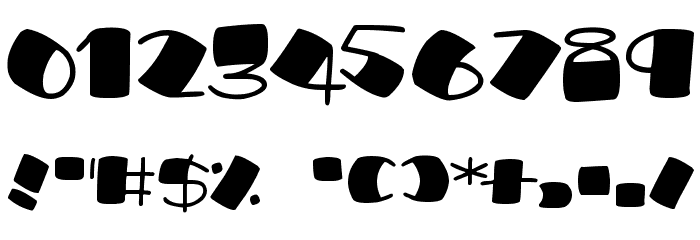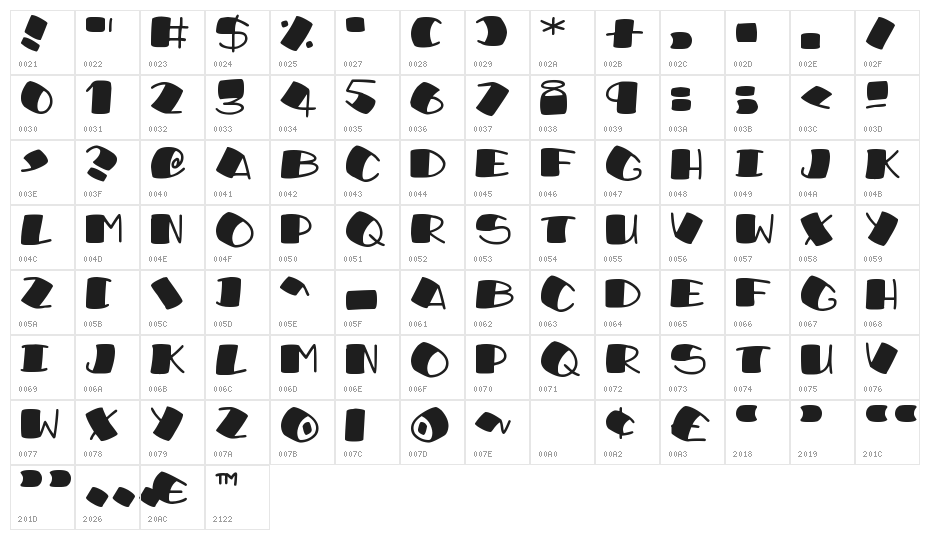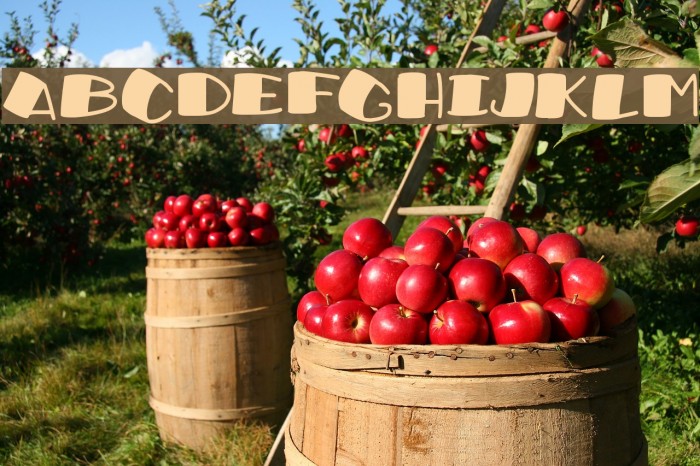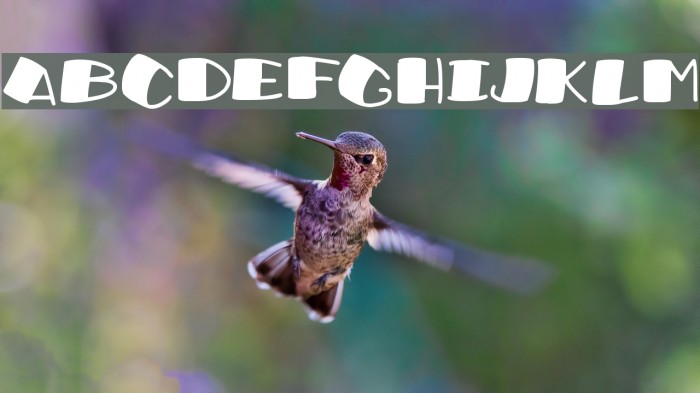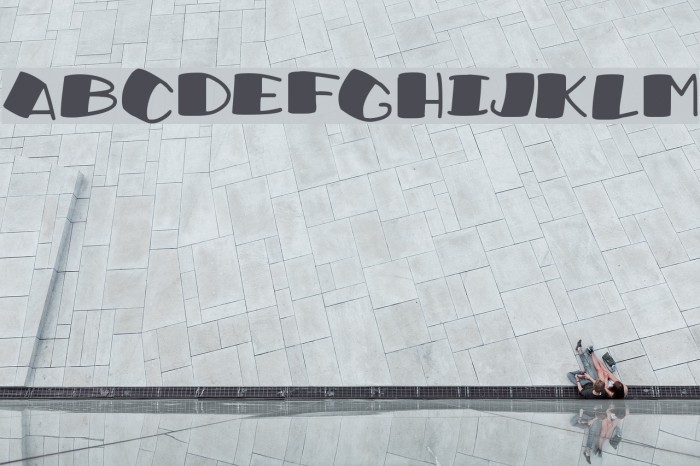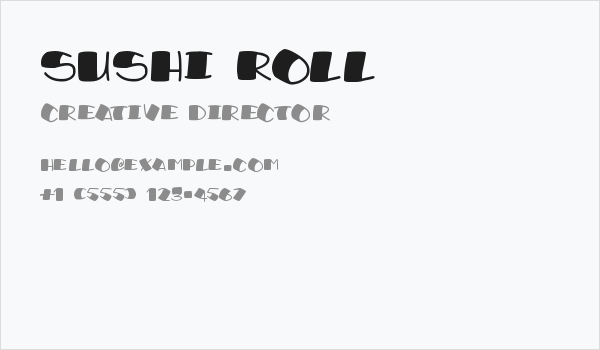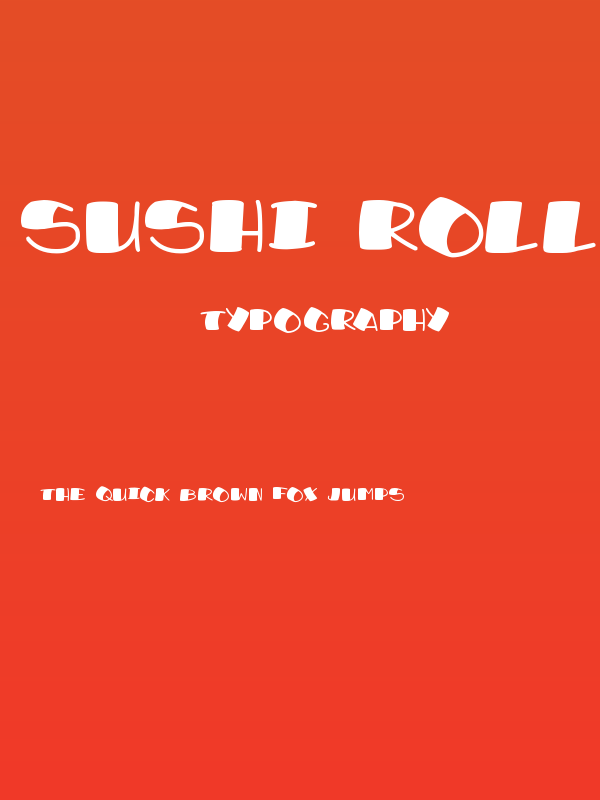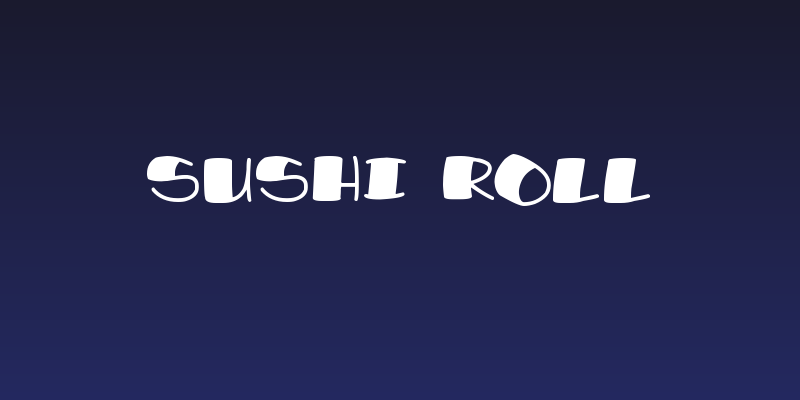
Sushi Roll Font
Sushi Roll Description
This playful and bold font features a unique, rounded style with a whimsical touch. Each character is crafted with a sense of movement and energy, making it stand out with its thick, curved strokes. The letters have a slightly irregular shape, adding to the font's charm and making it ideal for creative and fun projects. The numbers and special characters maintain the same lively aesthetic, ensuring consistency across all uses. This font's design is perfect for capturing attention and conveying a sense of joy and creativity.
| Proposed Projects | Ideal for children's books, playful branding, event posters, and creative packaging. |